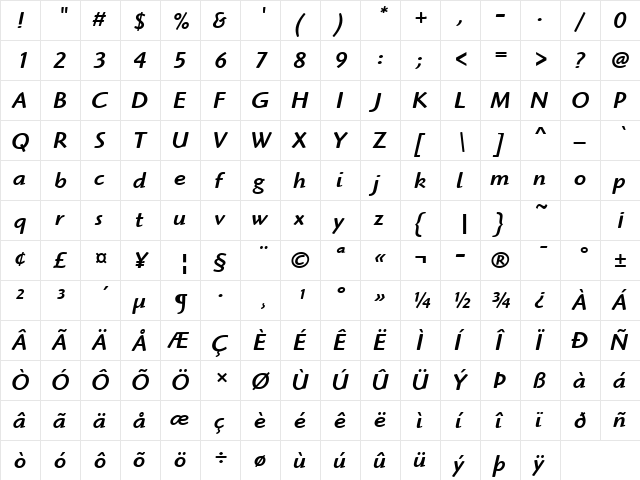
Highlander Md ITC TT MediumIta
Design Context for Highlander Md ITC TT Typeface
Highlander Md ITC TT is a composed and adaptable typeface that performs quietly and consistently across a wide range of design contexts.